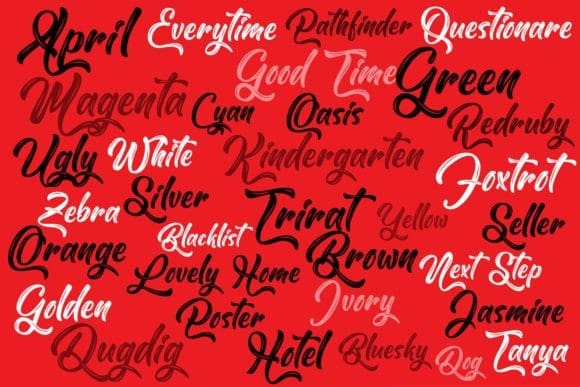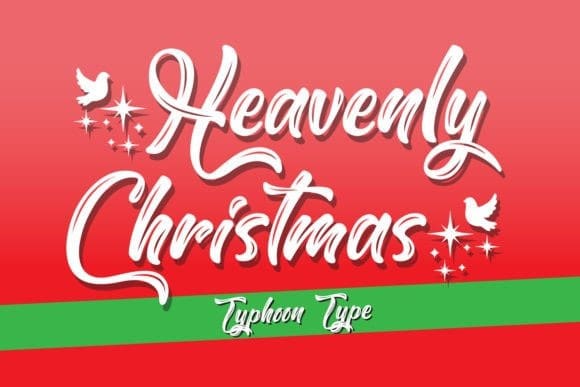
Heavenly Christmas Font
Heavenly Christmas Font is an enchanting English font designed to embrace the festive spirit of Christmas. With its script style, it mirrors the grace of handwritten brushstrokes, creating a charmingly flat yet expressive appearance. This font is meticulously crafted, radiating a sense of joy and merriment that is tailor-made for the holiday season.
Infused with a playful and contemporary flair, “Heavenly Christmas” is the perfect accompaniment for a variety of advertising endeavors. Be it greeting cards, banners, or digital campaigns, this font effortlessly brings a touch of Christmas magic to your designs, making them both captivating and timeless. Let your projects sparkle and shine with the festive charm of “Heavenly Christmas.”